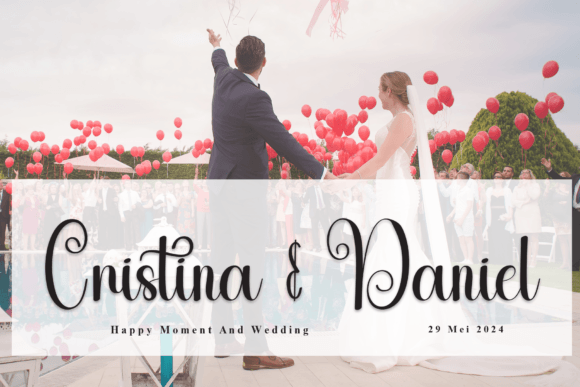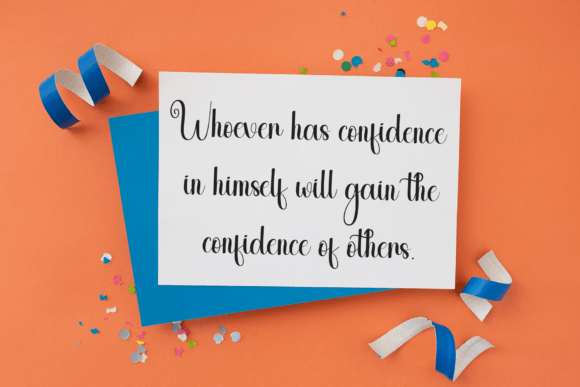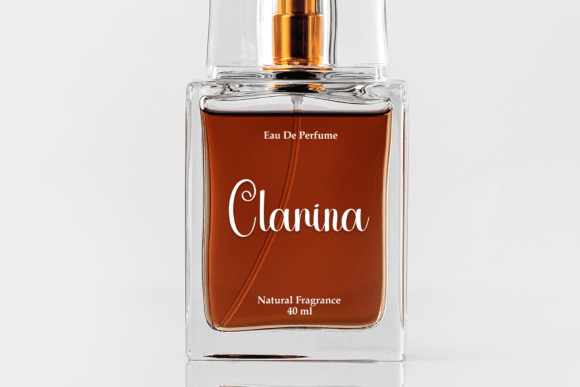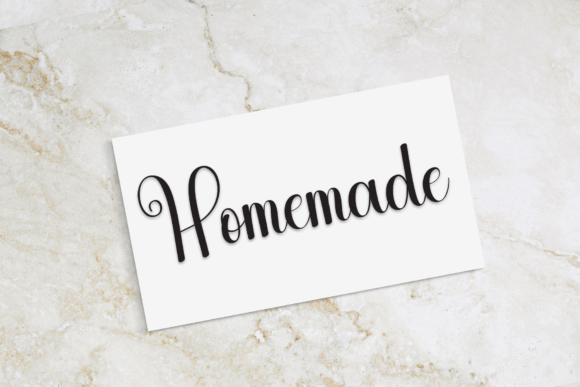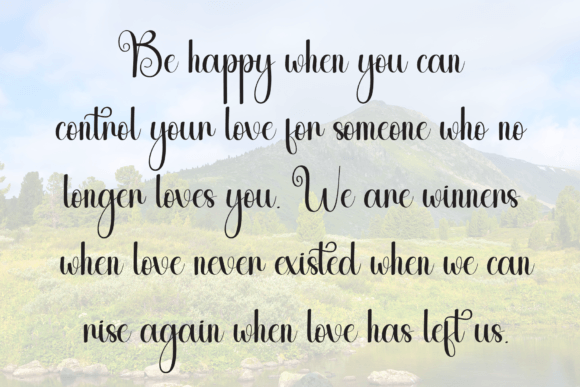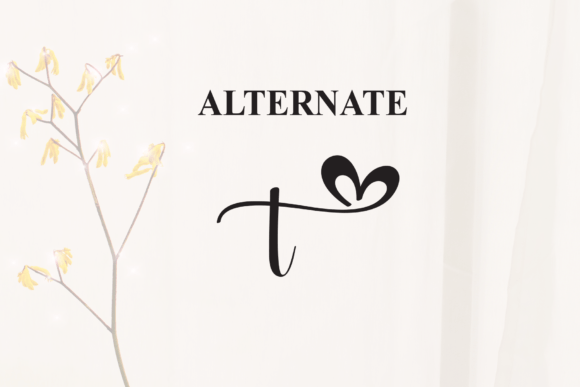
Introducing Another Font: The Sweet and Friendly Handwritten Font You Need
Are you tired of using the same old fonts in your designs? Look no further! Another Font is a beautiful, sweet, and friendly handwritten font that’s perfect for adding a fun touch to your projects. In this article, we’ll dive into the features and benefits of Another Font, and explore how you can use it to take your designs to the next level.
What is Another Font?
Another Font is a gorgeous handwritten font that’s designed to bring a smile to your face. It’s a cute and fun font that’s ideal for writing wedding invitations, cards, or any other design that might need a personal touch. The font is carefully crafted to be easy to read and understand, making it perfect for both digital and print designs.
Key Features of Another Font
- Handwritten style: Another Font has a beautiful, handwritten style that’s perfect for adding a personal touch to your designs.
- Cute and fun: This font is designed to be fun and playful, making it ideal for designs that need a lighthearted touch.
- Elegant and sophisticated: Despite its playful nature, Another Font is also elegant and sophisticated, making it perfect for more formal designs like wedding invitations.
- Easy to read: The font is carefully crafted to be easy to read and understand, making it perfect for both digital and print designs.
Use Cases for Another Font
Another Font is a versatile font that can be used in a variety of design projects. Here are some use cases to get you started:
- Wedding invitations: Another Font is perfect for writing beautiful and elegant wedding invitations that will set the tone for your special day.
- Greeting cards: This font is ideal for creating fun and playful greeting cards for birthdays, holidays, and other special occasions.
- Social media graphics: Another Font can add a personal touch to your social media graphics, making them more engaging and fun to read.
- Branding and packaging: This font can also be used in branding and packaging designs to add a touch of personality and whimsy.
Tips for Using Another Font
Here are some tips for getting the most out of Another Font:
- Pair it with other fonts: Another Font pairs well with other fonts, so don’t be afraid to experiment with different combinations to find the perfect look for your design.
- Use it in moderation: While Another Font is a beautiful font, it’s best used in moderation. Use it as a headline font or to add a personal touch to your design, but avoid overusing it.
- Experiment with colors: Another Font looks great in a variety of colors, so don’t be afraid to experiment with different color schemes to find the perfect look for your design.
Another Font is a sweet and friendly handwritten font that’s perfect for adding a fun touch to your designs. With its cute and playful style, elegant and sophisticated feel, and ease of use, this font is ideal for designers and crafters looking to take their designs to the next level. Whether you’re creating wedding invitations, greeting cards, or social media graphics, Another Font is a great choice. So why not give it a try and see how it can elevate your designs?